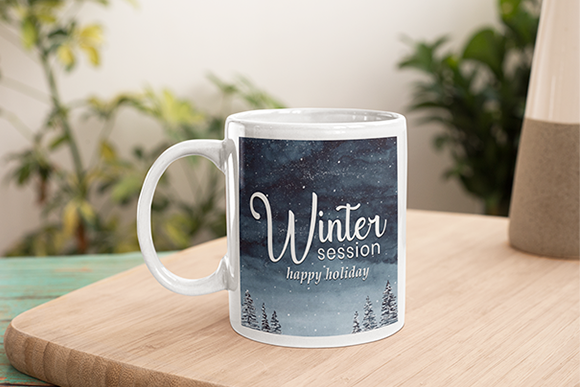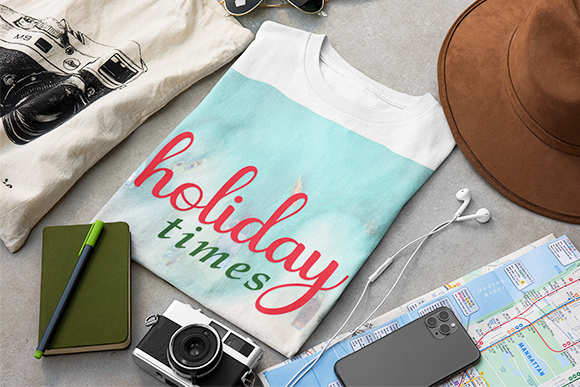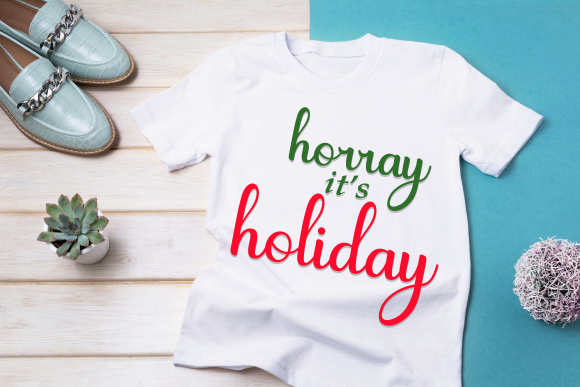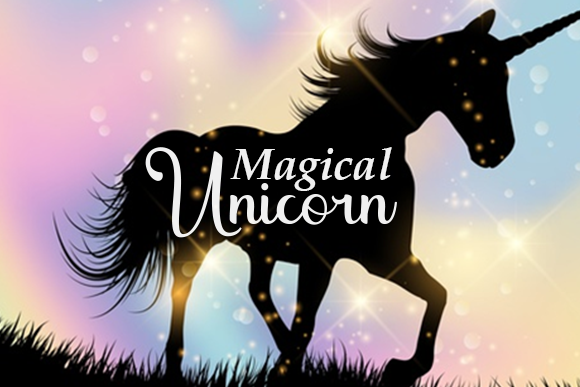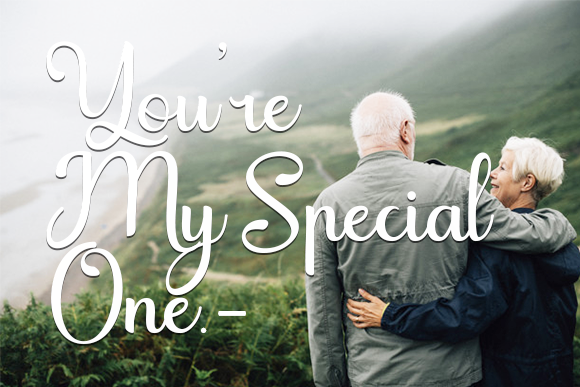
Cathyan Font: Elevate Your Designs with Elegance and Whimsy
In the world of typography, fonts play a crucial role in conveying the tone and personality of a design. For crafters and designers seeking to add a touch of magic to their creations, the Cathyan Font is an exceptional choice. This enchanting script font seamlessly blends classic elegance with a friendly feel, making it perfect for those looking to make their designs stand out.
The Essence of Cathyan Font
Cathyan is a meticulously crafted script font that exudes an air of sophistication and charm. Its classic style is reminiscent of timeless elegance, while its friendly undertones ensure that the overall feel remains approachable and inviting. This unique combination makes Cathyan an incredibly versatile font, suitable for a wide range of design projects.
Key Features of Cathyan Font
- Classic yet Friendly: Cathyan strikes the perfect balance between classic elegance and a warm, friendly feel. This duality makes it an excellent choice for designs that require a touch of sophistication without appearing too formal.
- Elegant Script: The flowing script of Cathyan is both beautiful and highly legible. Its elegant strokes and curves add a touch of whimsy to any design, making it perfect for creative projects.
- Versatility: Whether you’re working on a wedding invitation, a brand logo, or a digital project, Cathyan’s versatility ensures it will complement your design beautifully.
- Easy to Read: Despite its elegant and cursive nature, Cathyan is remarkably easy to read. This makes it not only a stylish choice but also a practical one for a variety of applications.
Uses of Cathyan Font
The applications of Cathyan Font are vast and varied. Here are some popular uses:
- Wedding and Event Invitations: Add a touch of elegance and romance to your wedding or event invitations with Cathyan.
- Branding and Logos: Use Cathyan to create a memorable and sophisticated brand identity that stands out.
- Digital and Print Media: Whether it’s for a website, blog, magazine, or brochure, Cathyan can enhance your design with its unique charm.
- Stationery and Packaging: Elevate your stationery and product packaging with a font that exudes class and personality.
Tips for Using Cathyan Font Effectively
To get the most out of Cathyan Font, consider the following tips:
- Pair with Complementary Fonts: For maximum impact, pair Cathyan with simple, sans-serif fonts to create a striking contrast.
- Adjust Letter Spacing: Experiment with letter spacing to find the perfect balance that enhances readability and aesthetics.
- Use it Sparingly: While Cathyan is beautiful, using it sparingly can make it more impactful. Consider using it for headings or key messages.
Cathyan Font is a magical script font that brings a perfect blend of elegance and friendliness to any design. Its classic style, coupled with its approachable feel, makes it an ideal choice for designers and crafters looking to create original and outstanding designs. With its versatility and wide range of applications, Cathyan is sure to become a staple in your font collection.
Whether you’re a professional designer or a DIY crafter, Cathyan Font offers the perfect combination of style and functionality. So, why settle for ordinary when you can create something truly magical with Cathyan?